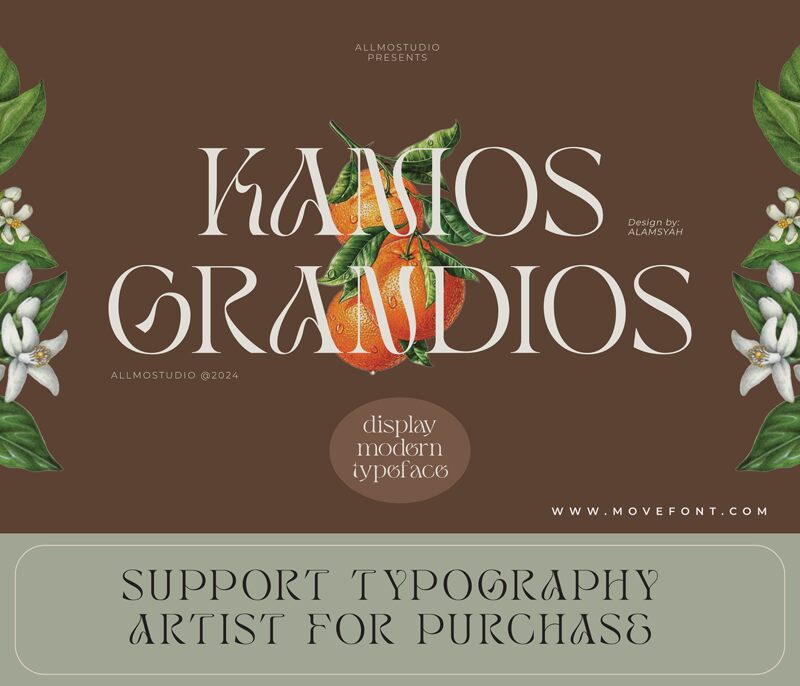
Kamos Grandios
Kamos Grandios font by www.movefont.com is a free display font designed to transform boring designs into outstanding solutions. Classic inspiration and a refined aesthetic give it a timeless appeal that suits many projects. The overall style is initally readable and memorable, making any viewer remember the text they’ve just read.
Use Kamos Grandios in design work related to packaging, branding, posters, invitations, wedding cards and related stationery items as well as logo design. Transform magazine covers, book covers, and video game cover art using its stunning serif style with an ornate and sophisticated visual efect.
There are still many shapes that are not perfect.